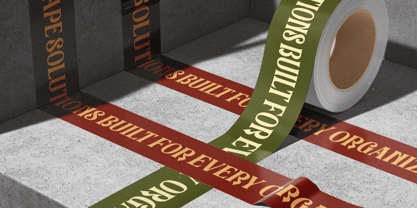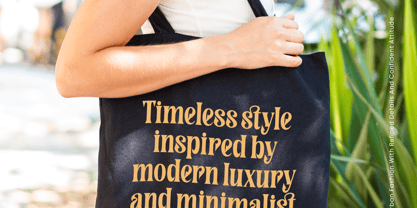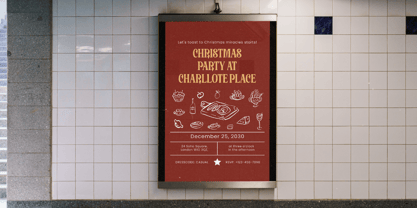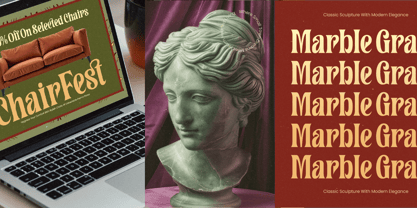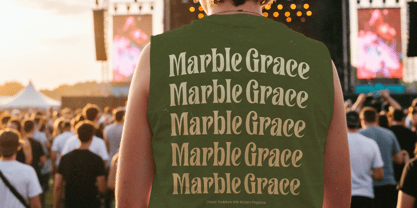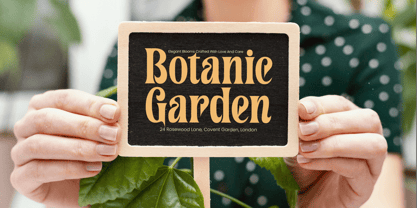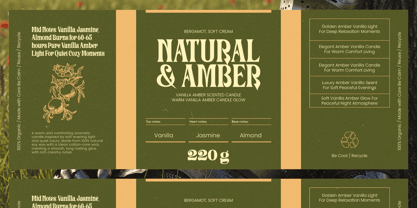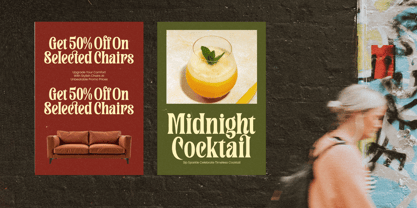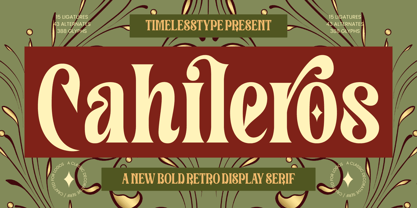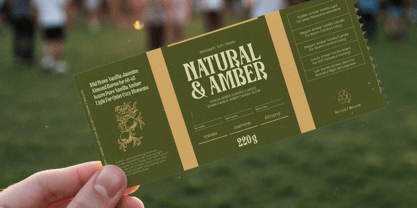
Cahileros
por Timelesstype Studio
La familia tipográfica Cahileros fue diseñada por Heru Utama Putra y publicada por Timelesstype Studio. Cahileros contiene 2 estilos y opciones de paquete familiar. Más información sobre esta familia
Cahileros is a bold retro display serif crafted with strong vintage character and expressive decorative curves. Its sharp terminals, high-contrast strokes, and ornamental shapes make it perfect for logos, posters, packaging, boutique branding, and editorial layouts. With its nostalgic energy and elegant retro flair, this font brings a warm heritage aesthetic while staying clean and modern for today’s designs.
Diseñadores: Heru Utama Putra
Fundición: Timelesstype Studio